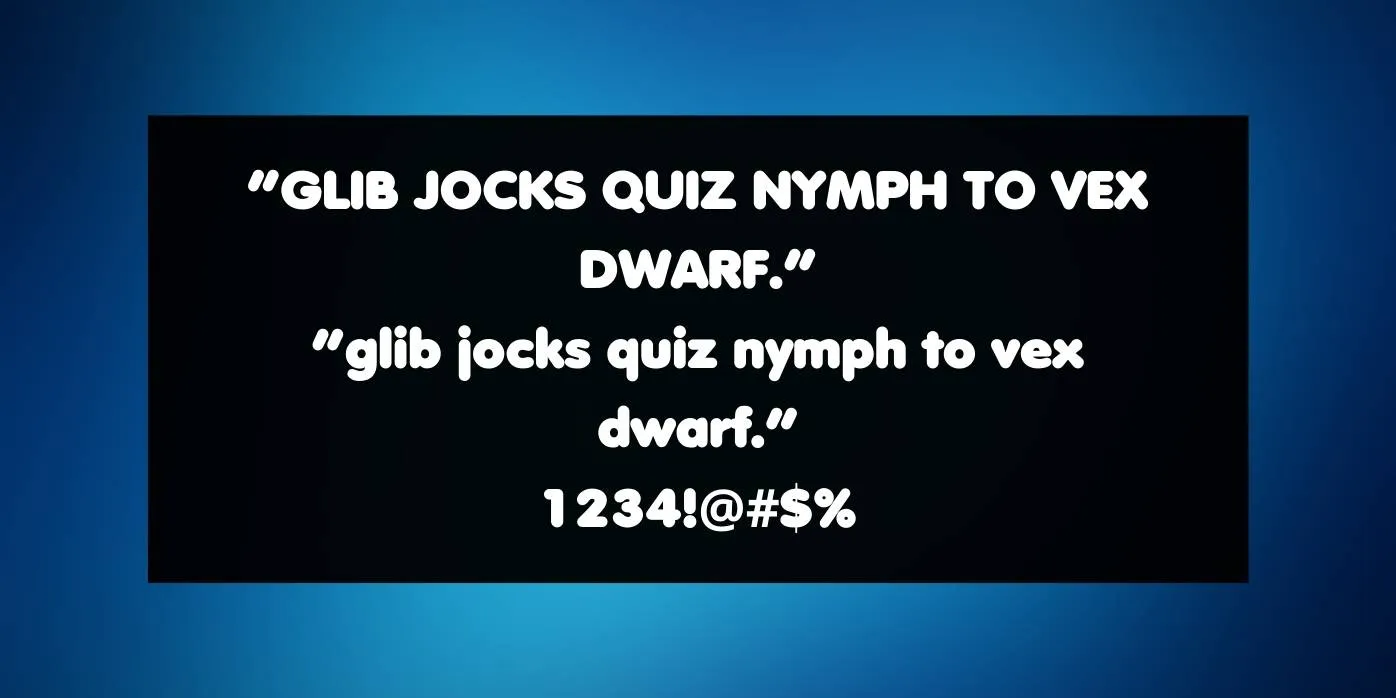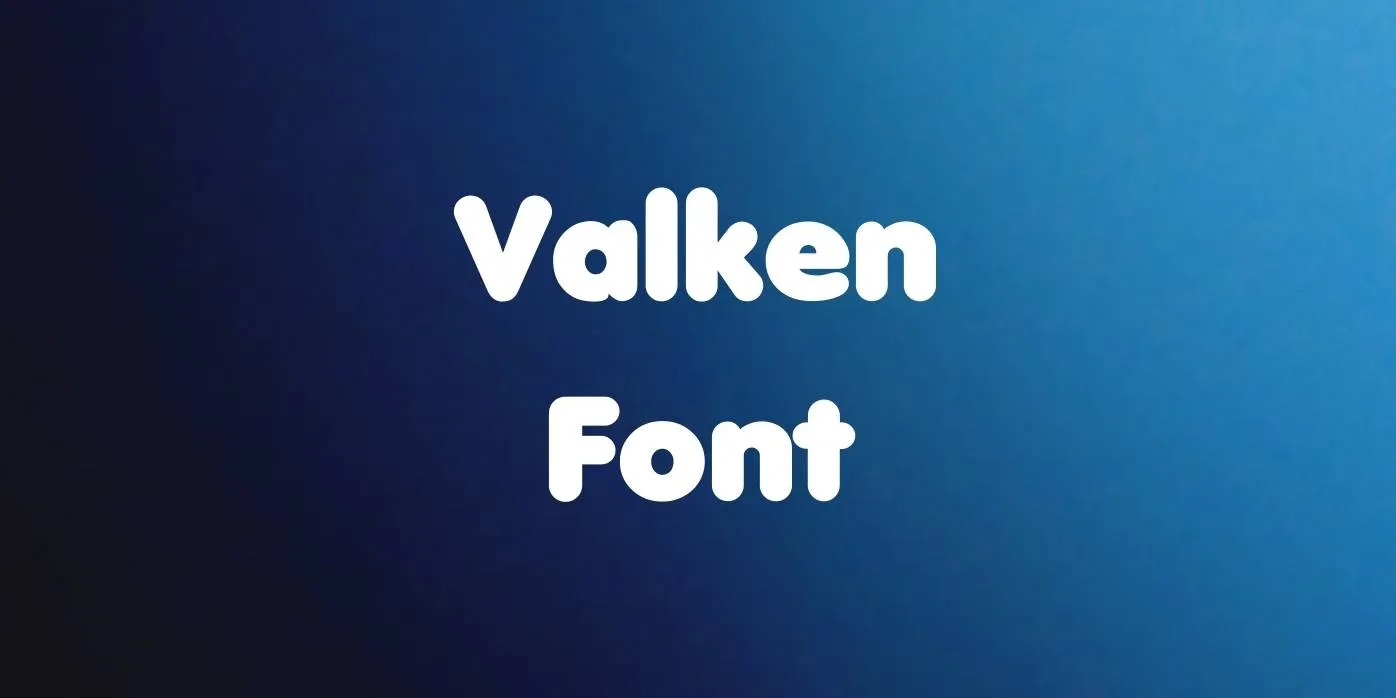
Valken Font
Valkan font is launched under the version of Altsys Fontographer. It is a very attractive and simple font. It consists of 242 characters and 201 glyphs. Its weight and width are normal (medium).
Unicodes which support this font are Basic Latin Latin-1 Supplement, Latin Extented-A Greek and  Coptic, General Punctuations, Mathematical operators, and geometric shapes. Mac style for this font is also bold. It contains many features capital letters, small letters, numbers, symbols, and punctuations. This font is mostly used in the 1960s and 1970s.